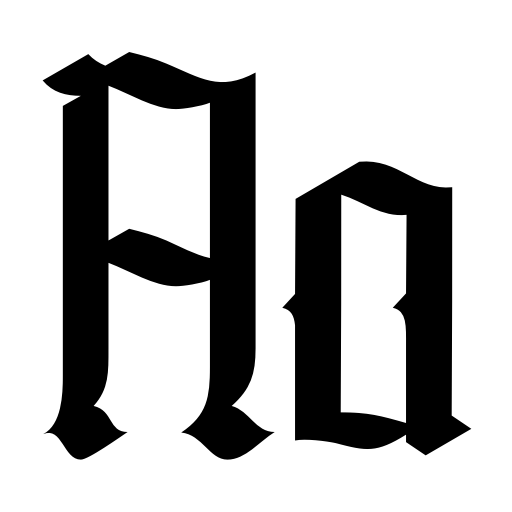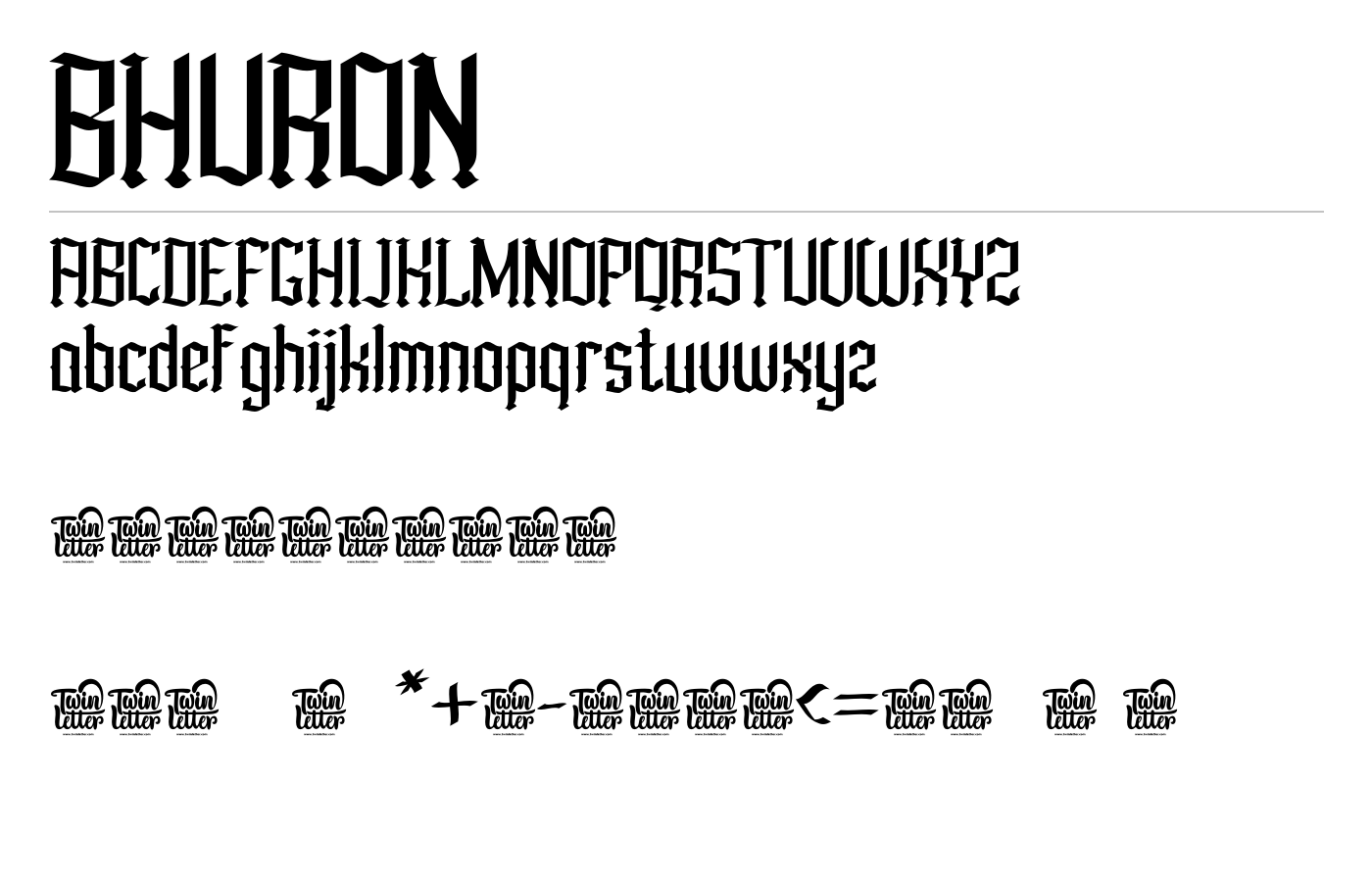
BHURON is a bold, condensed blackletter-style font with strong vertical strokes and sharp, angular serifs that give it a highly distinctive and gothic appearance. Its high contrast between thick and thin lines and intricate letterforms create an antique, medieval vibe, making it ideal for dramatic headlines, logos, and designs that need a historic or edgy personality. This font works best for branding, posters, or editorial projects that seek a bold, vintage touch with a dark, sophisticated feel.
BHURON Font
About BHURON Font